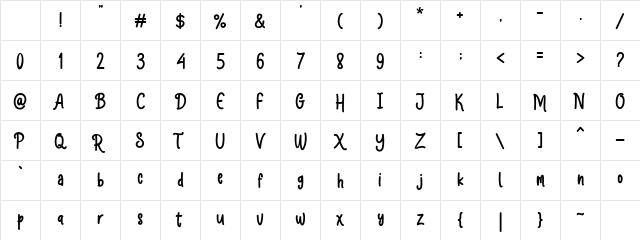
Complete Hello Grizelle sans Regular glyph index. Displaying only characters natively supported by Hello Grizelle sans Regular font.
Hello Grizelle sans is a composed and adaptable typeface that performs quietly and consistently across a wide range of design contexts.